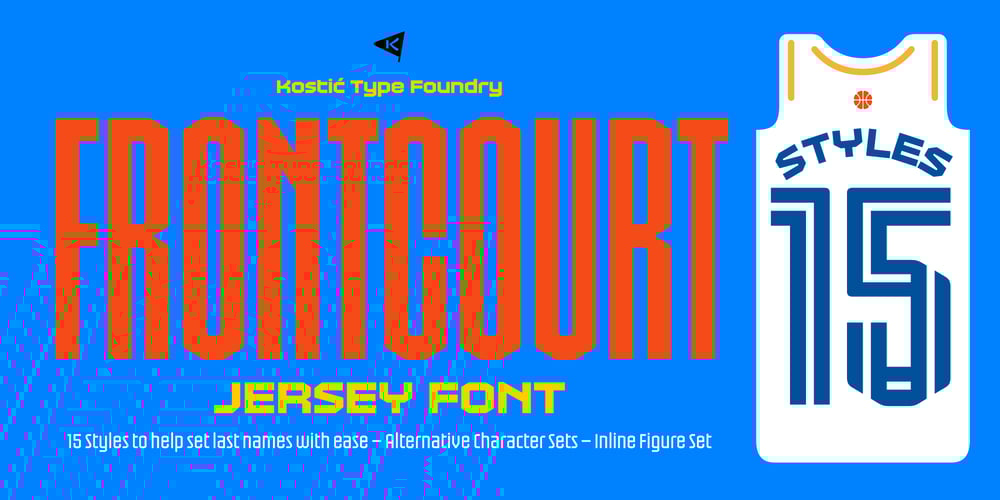
Frontcourt Font Family was designed by Nikola Kostić and published by Kostic. Frontcourt contains 15 styles and family package options. Frontcourt is a versatile display typeface primarily conceptualized for jersey names and numbers, offering exceptional flexibility across five widths—Compressed, Condensed, Normal, Wide, and Extra Wide. Each width is available in three distinct styles: Regular, Medium, and Bold, ensuring optimal legibility and impact across various applications.With a focus on adaptability, Frontcourt allows for seamless customization of short and long last names on jerseys, maintaining a balanced and cohesive aesthetic. Beyond its intended use in sports typography, it can also be useful in other display settings where bold, high-impact lettering is needed. A set of alternative characters (C, E, F, N, S, a, c, s, &) via the OpenType feature and an additional set of inline figures (both Proportional and Tabular) offer further customization, making Frontcourt a dynamic choice for branding, signage, and promotional design.